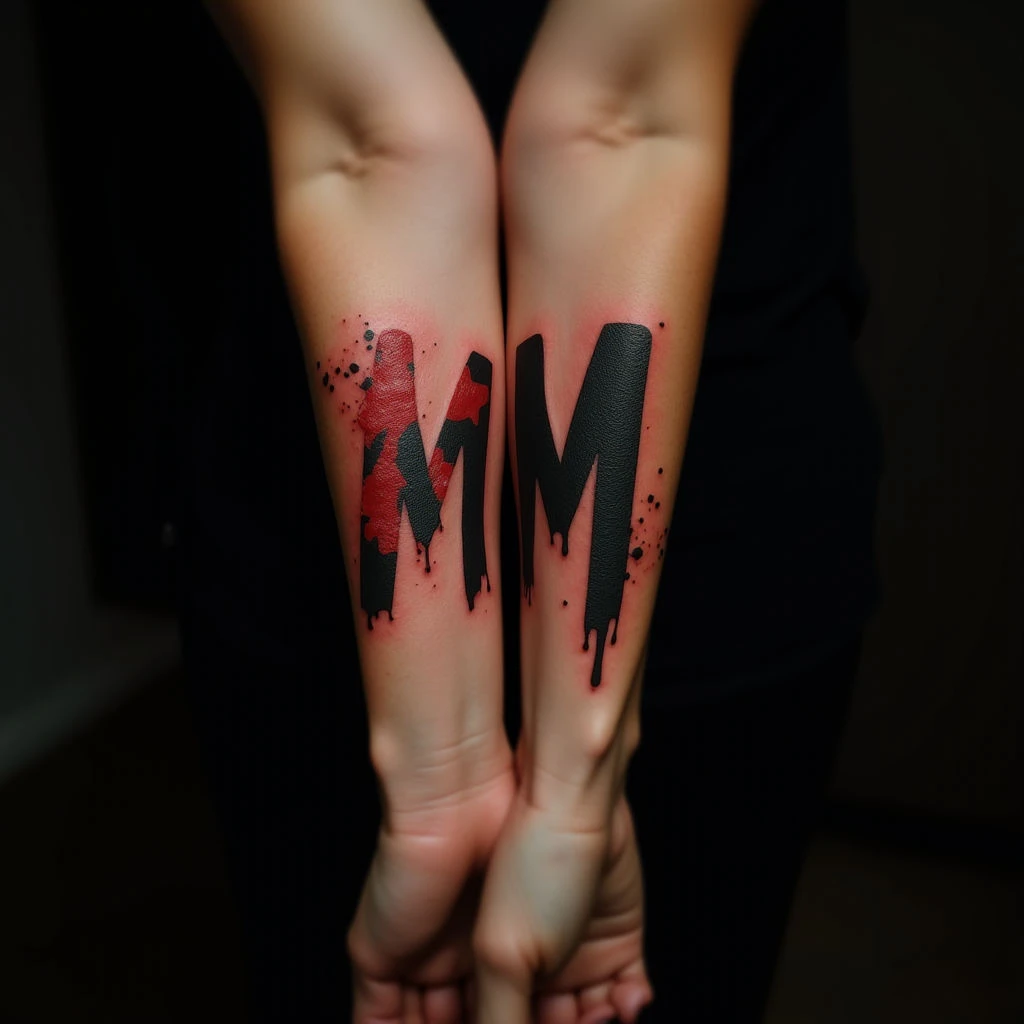
Looking for the perfect forearm name tattoo? Explore a variety of fonts, styles and design ideas. Discover how to personalize your ink with meaningful typography in black-red-white.
Forearm Name Tattoos: Font Ideas & Inspiring Designs
Bold, mirrored “M” tattoos adorn both forearms, facing outward. The letters utilize a strong block style with a dynamic dripping effect in shades of red and black, creating a sense of movement. High ink saturation ensures crisp lines and detailed gradient shading that convincingly simulates liquid flow.
This lettering style is versatile for any body placement but particularly impactful on the forearms. Consider personalizing with initials or full names in black, red, and white to achieve a similar striking effect. Size 'm' offers balance; explore font variations to match your aesthetic.